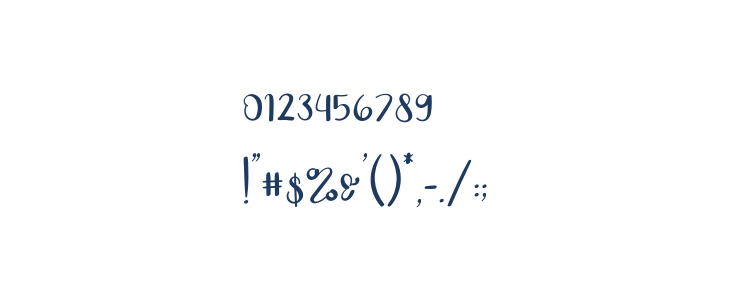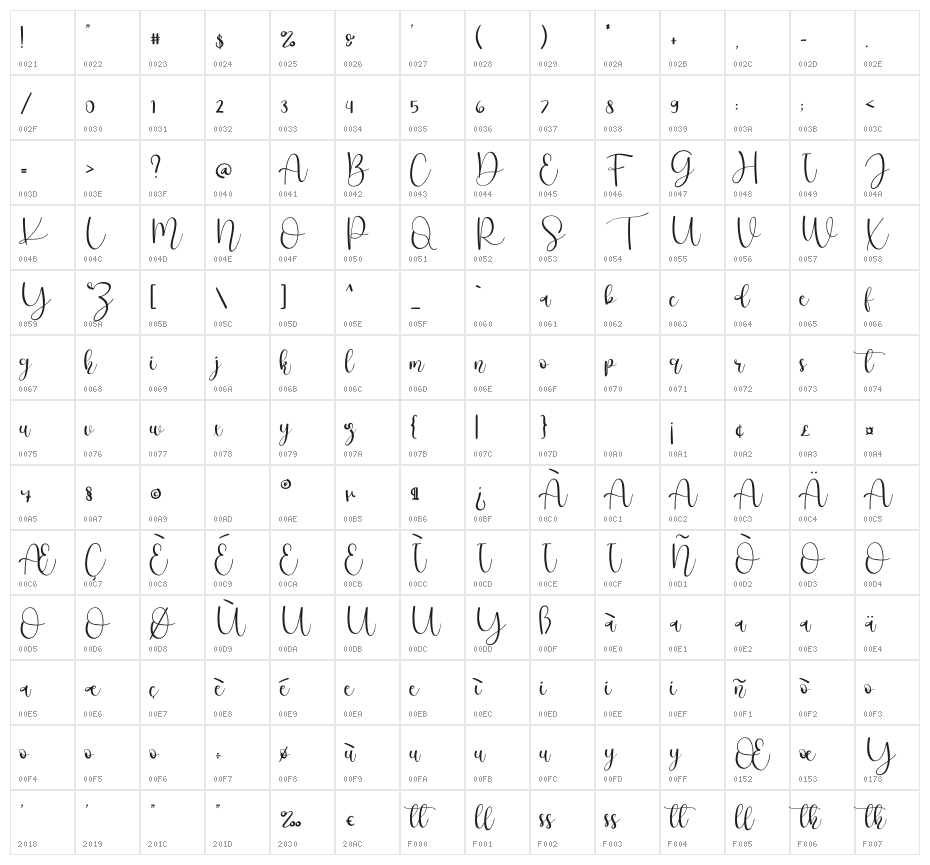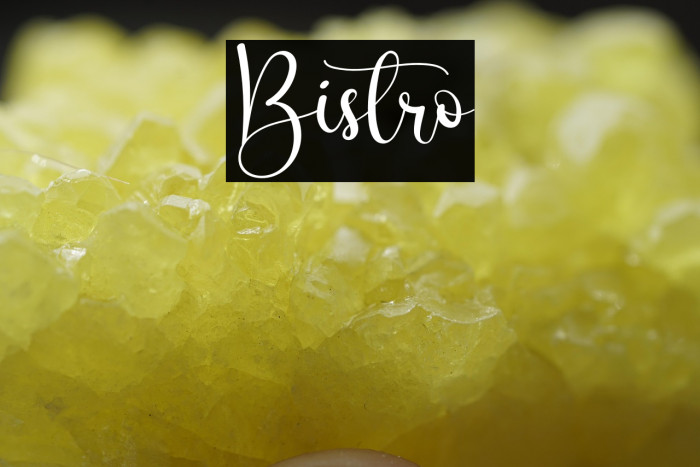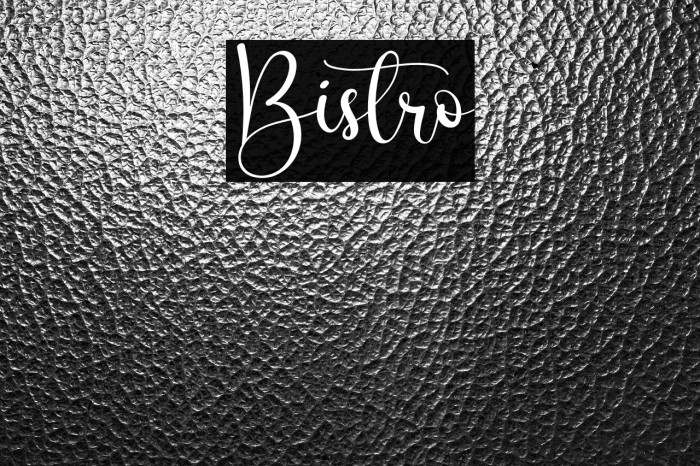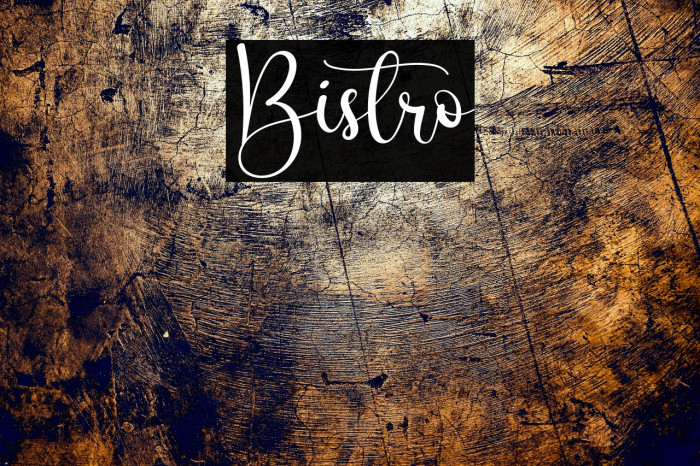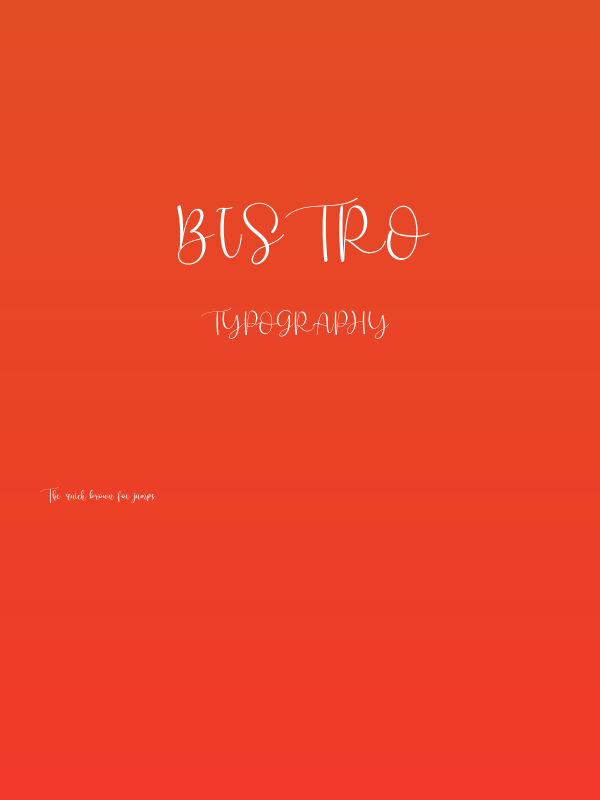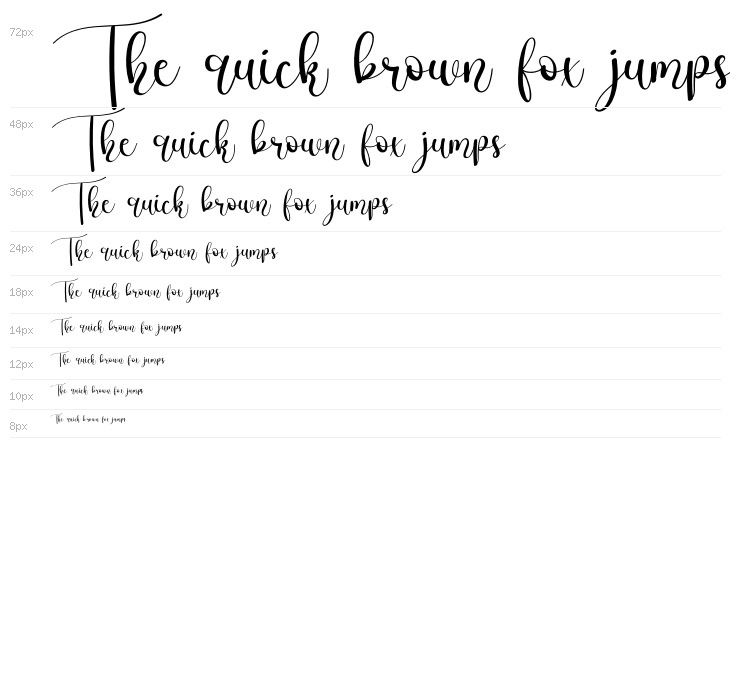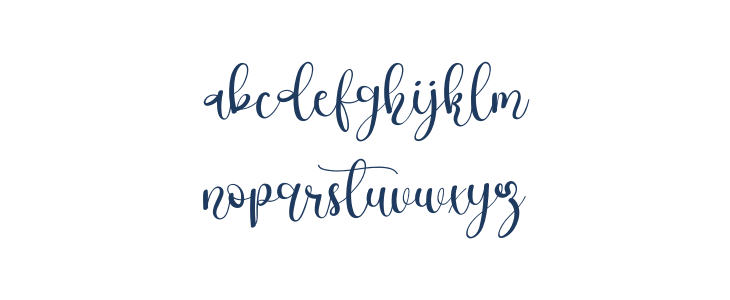
Bistro Font
Bistro Description
This elegant script font features a flowing, cursive style with smooth, rounded edges and a playful yet sophisticated appearance. The uppercase letters are tall and graceful, with sweeping curves and loops that add a sense of movement and fluidity. The lowercase letters maintain a consistent rhythm, with some characters featuring unique flourishes that enhance their charm. The numbers and special characters are designed to complement the overall aesthetic, ensuring a cohesive look across all text. This font is perfect for adding a touch of elegance and personality to any design project.
| Overall Style | Elegant, Playful |
| Proposed Projects | Ideal for wedding invitations, branding, greeting cards, and elegant packaging designs. |